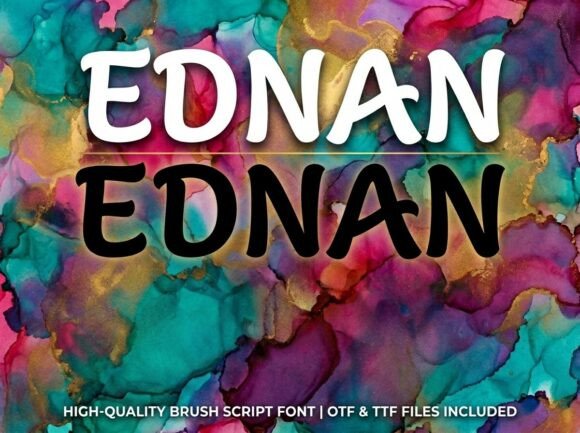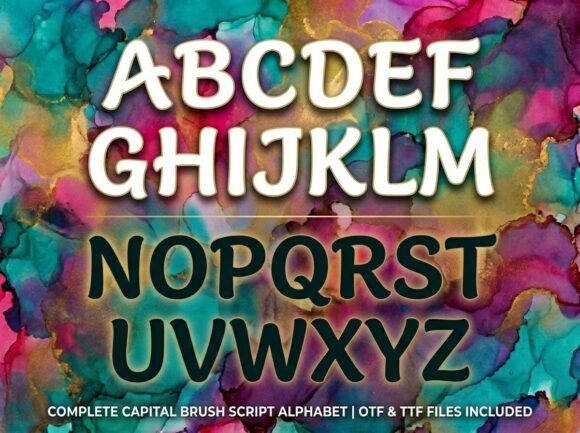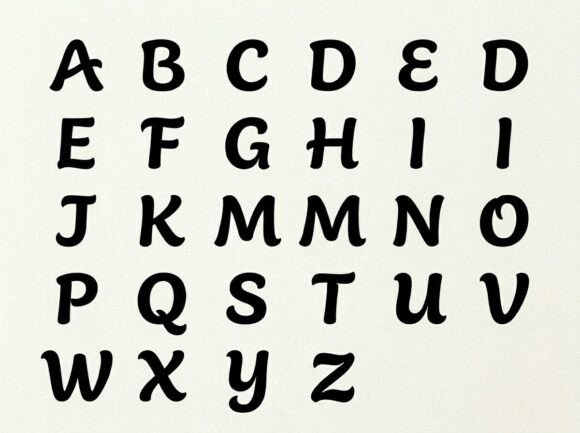
Introducing Ednan Font: A Stunning Decorative Display Font
Are you tired of using the same old fonts for your designs? Look no further! Ednan Font is a game-changing decorative display font that’s sure to turn heads. With its unique artistic elements and strong visual personality, this font is perfect for creators who want to break away from the ordinary and make a statement.
What Makes Ednan Font Special?
Ednan Font is a versatile font that’s designed to be the center of attention. Its stunning decorative style makes it perfect for bold headlines, artistic logos, and creative packaging. But what really sets it apart is its professional and polished finish, making it suitable for a wide range of design projects.
Before making a purchase, it’s essential to note that Ednan Font is an ALL-CAPS (Uppercase Only) display typeface. This means it does not include lowercase letters. It’s specifically designed for high-impact headlines, logos, and decorative initials where every letter is a work of art.
Use Cases for Ednan Font
So, how can you use Ednan Font in your designs? Here are some ideas to get you started:
- Bold Headlines: Use Ednan Font to create eye-catching headlines that grab attention and make a statement.
- Artistic Logos: Create unique and memorable logos that showcase your brand’s personality and style.
- Creative Packaging: Add a touch of elegance and sophistication to your packaging designs with Ednan Font.
- Decorative Initials: Use Ednan Font to create stunning decorative initials that add a personal touch to your designs.
Why Choose Ednan Font?
With so many fonts available, why choose Ednan Font? Here are just a few reasons:
- Unique and Artistic: Ednan Font offers a unique and artistic style that’s sure to stand out from the crowd.
- Professional and Polished: Despite its decorative style, Ednan Font maintains a professional and polished finish that’s suitable for a wide range of design projects.
- Versatile: Ednan Font is versatile enough to be used in a variety of design projects, from bold headlines to artistic logos and creative packaging.
In conclusion, Ednan Font is a stunning decorative display font that’s perfect for creators who want to break away from the ordinary and make a statement. With its unique artistic elements, strong visual personality, and professional and polished finish, this font is sure to turn heads. Whether you’re a designer, craft, or DIY enthusiast, Ednan Font is a great addition to your font library.